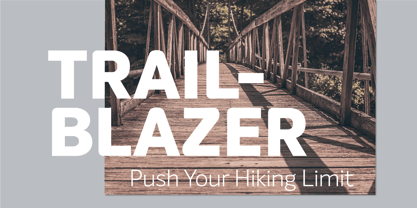
Intelo
by Monotype
Intelo was created with the single idea of redefining what makes a functional grotesque typeface nowadays. Its large x-height and letterforms with subtle elliptical finish create a distinctive look that can help brands cater to an increasingly design savvy audience. To top it off, Intelo comes in two versions - an attention-grabbing original cut and an additional version with flat endings for a more streamlined effect. The family weights range from thin to extrabold with matching italics making it a versatile choice and perfectly suited for digital applications including web and interaction design as well as printed media such as editorial and corporate materials. When it comes to Opentype features, Intelo is loaded with stylistic alternates, tabular figures, fractions, ligatures, and more. In addition, the font family has an extended language support featuring Western, Eastern and Central European languages. To sum it up, the friendly and inviting letterforms of Intelo came as a solution to the need for more human fonts in our technology-oriented environment.